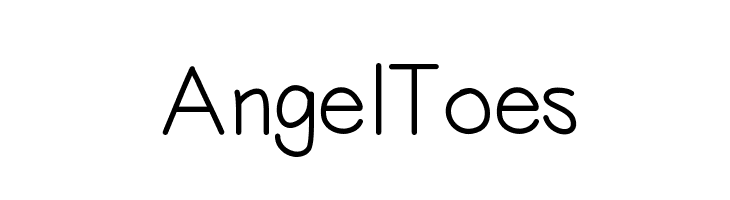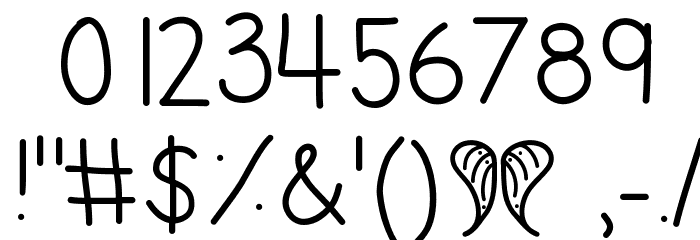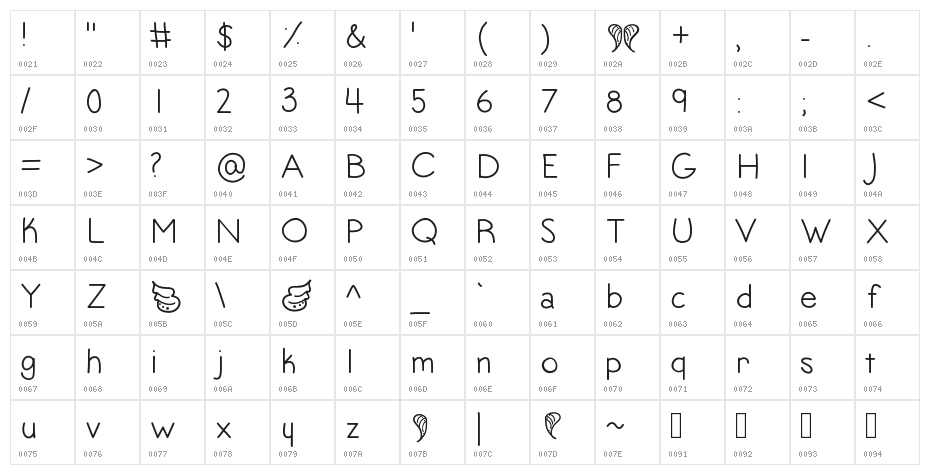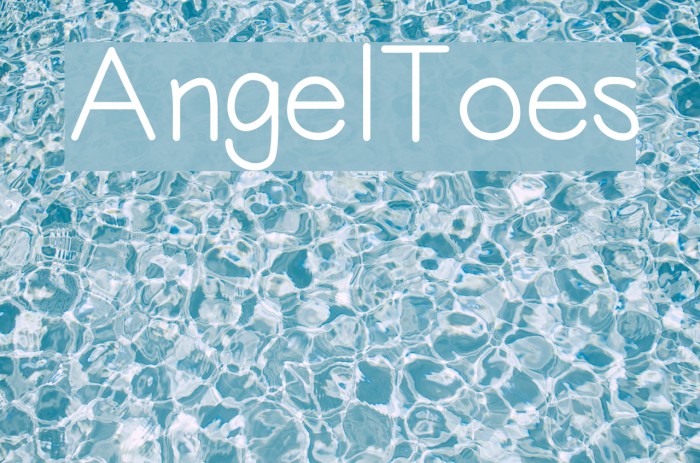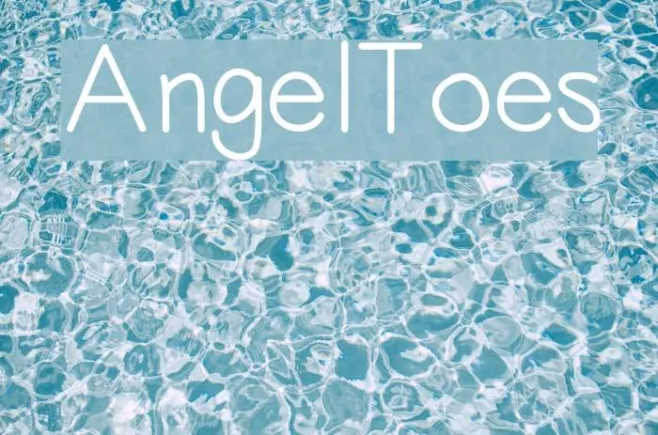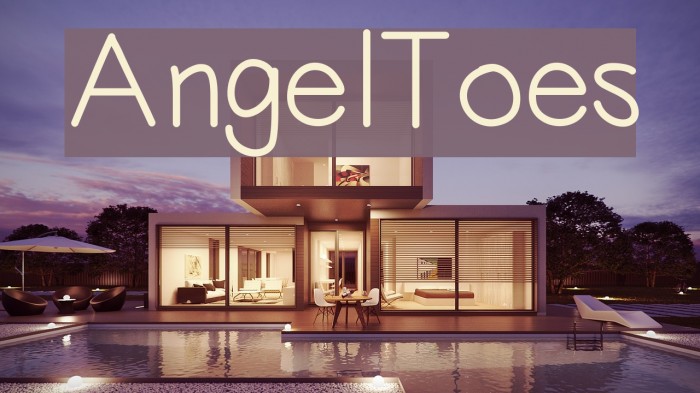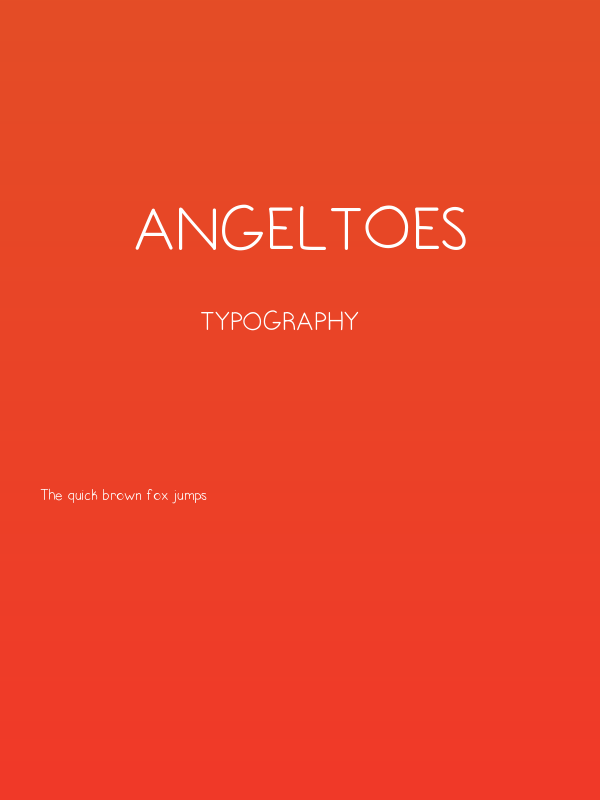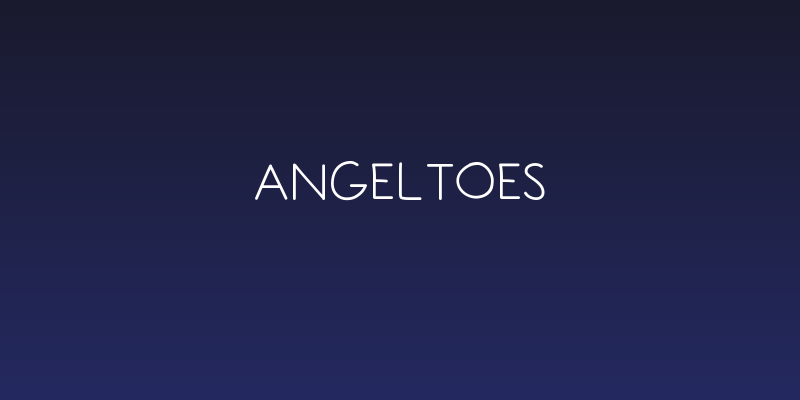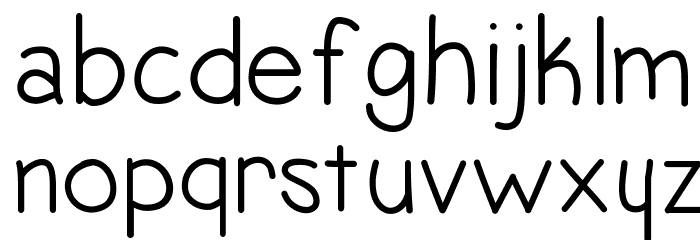
AngelToes Font
AngelToes Description
This playful and whimsical font features rounded, smooth lines with a casual, handwritten feel. The characters are evenly spaced, providing a clean and approachable look. The uppercase letters maintain a consistent height, while the lowercase letters have a slightly playful bounce, adding to the font's charm. The numerals are clear and easy to read, matching the overall style of the alphabet. Special characters are included, with some featuring unique, decorative elements that enhance the font's playful nature. This font is perfect for projects that require a friendly and informal touch.
Fonts by Vanessa Bays - bythebutterfly.com
| Proposed Projects | Ideal for children's books, greeting cards, playful branding, and casual invitations. |